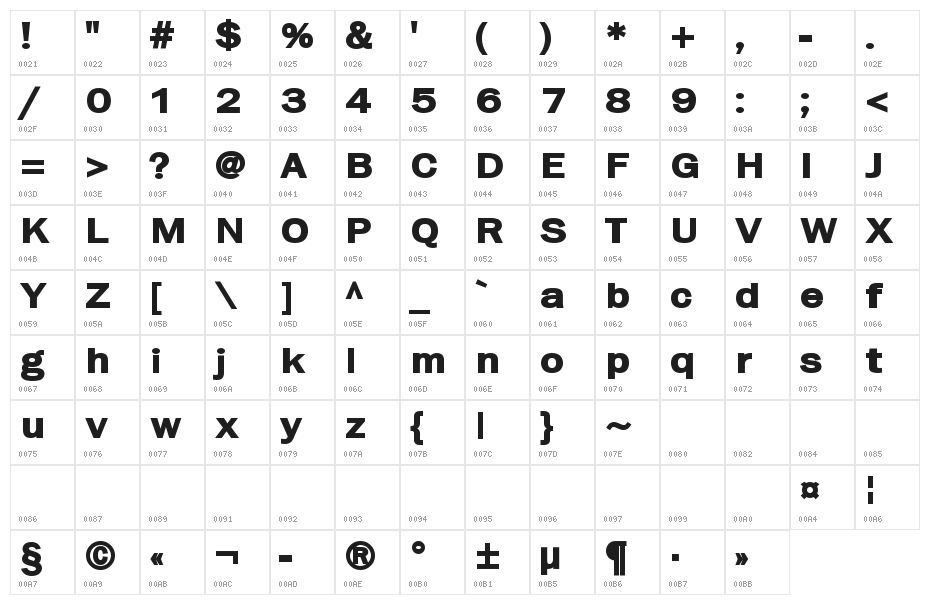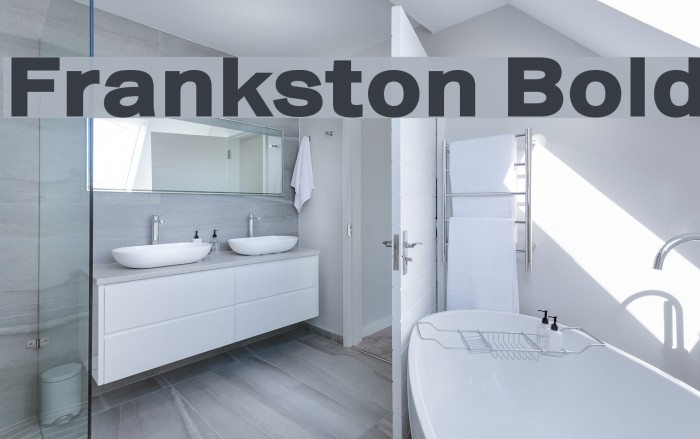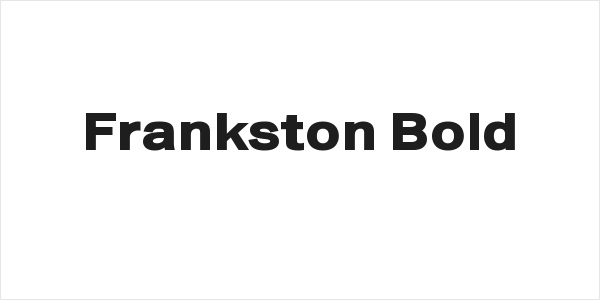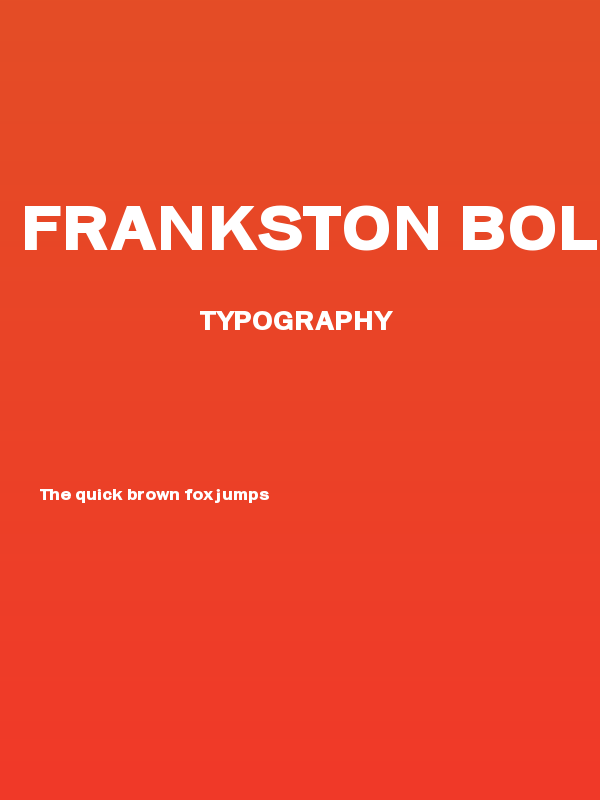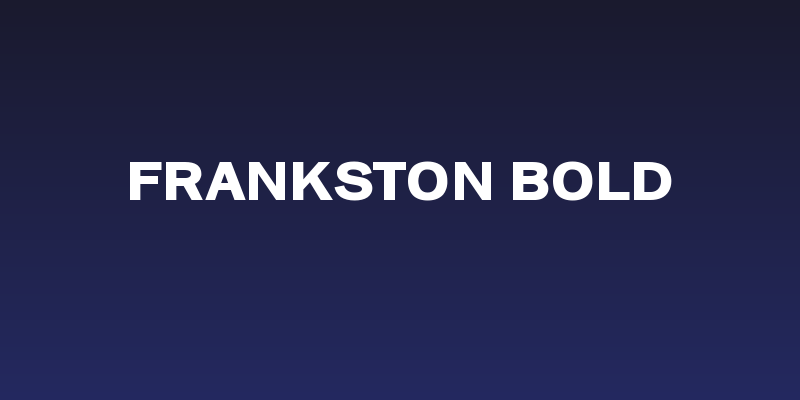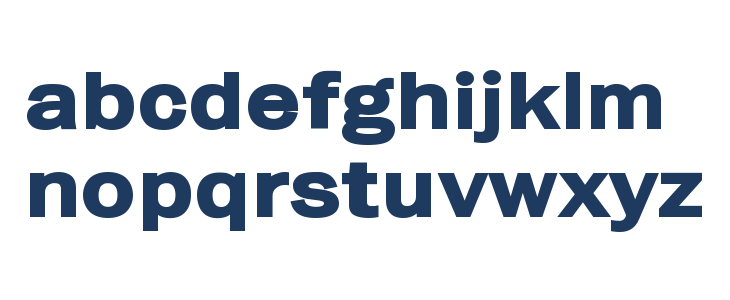
Frankston Bold Font
Frankston Bold Description
This bold typeface features strong, thick strokes that convey a sense of power and confidence. The letters are uniformly wide, with a consistent weight throughout, making it highly legible and impactful. The uppercase and lowercase characters are well-balanced, and the numerals are clear and straightforward. Special characters are designed to match the boldness of the alphabet, ensuring a cohesive look across all text elements. This font is ideal for making a statement, with its bold presence and clean lines.
| Proposed Projects | Ideal for headlines, posters, branding, and any design requiring a strong visual impact. |